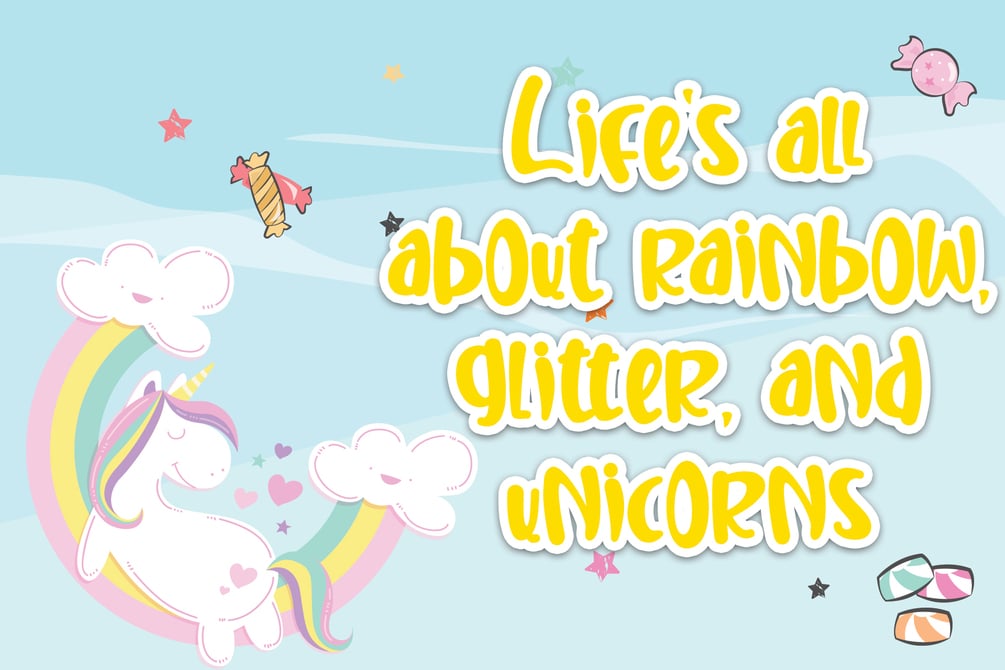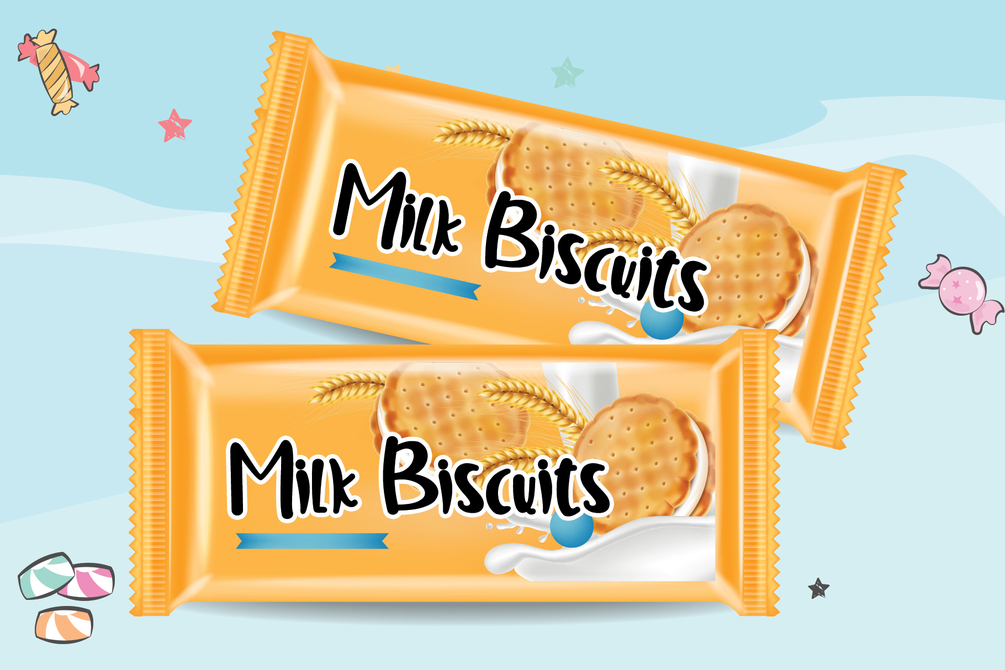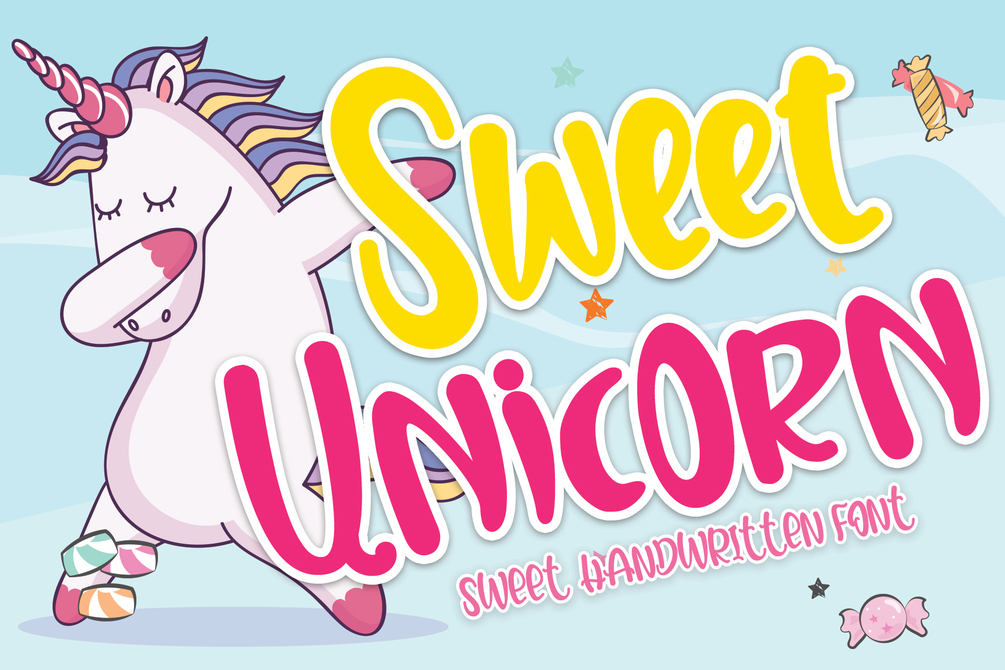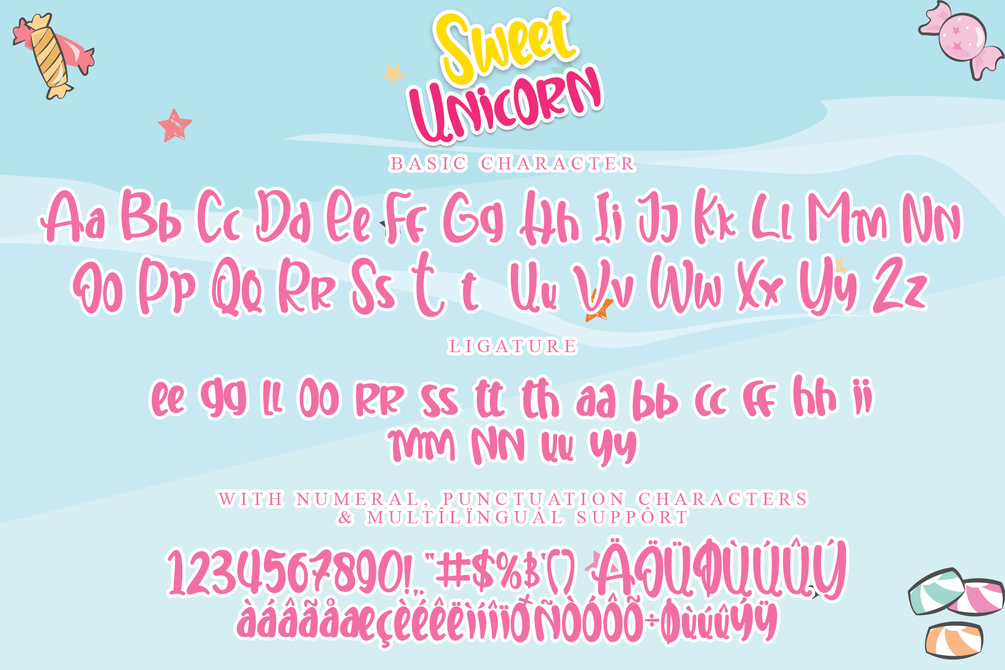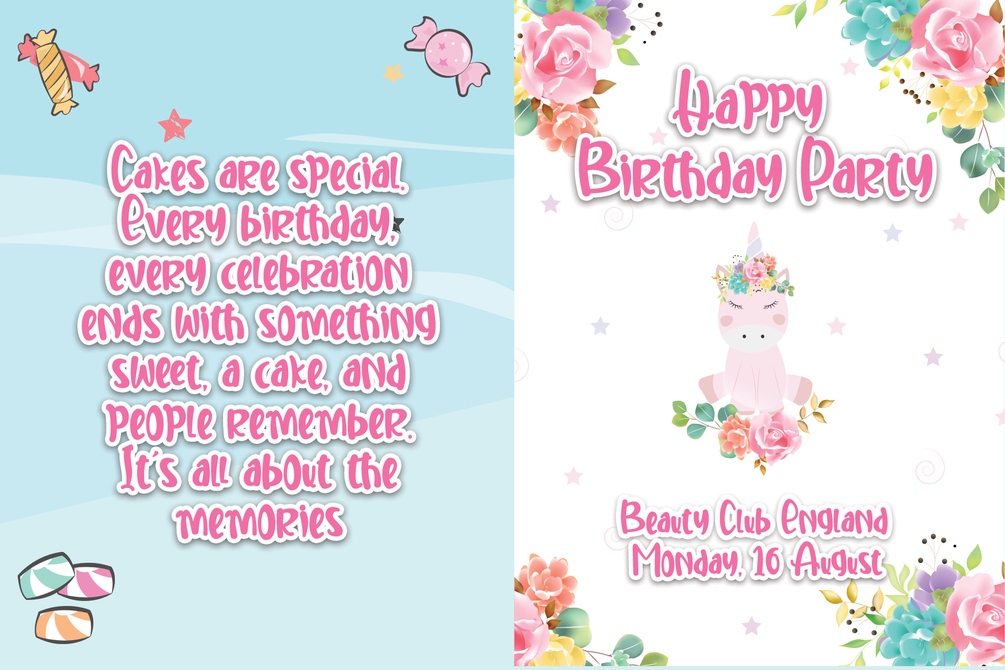
Sweet Unicorn
Stefani Tri Rosa
Sweet Unicorn is a cute and sweet handwritten font with an incredibly friendly feel. Get inspired by its playful feel! This font is PUA encoded which means you can access all of the cute glyphs and swashes with ease! It also features a wealth of special features including alternate glyphs and ligatures.